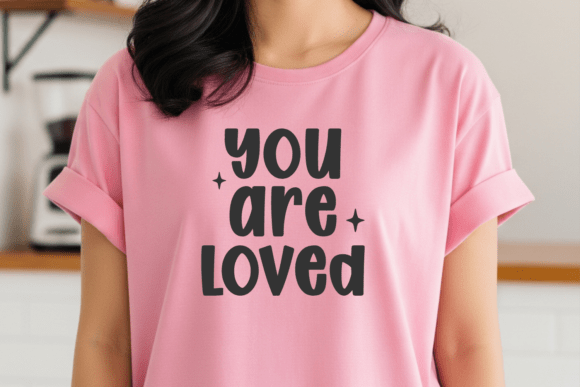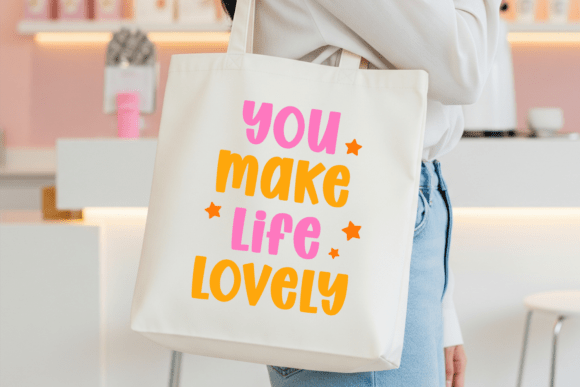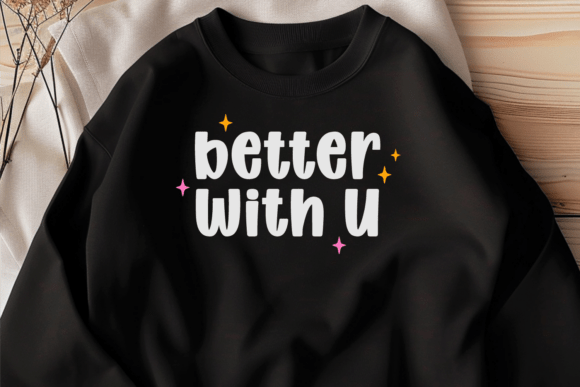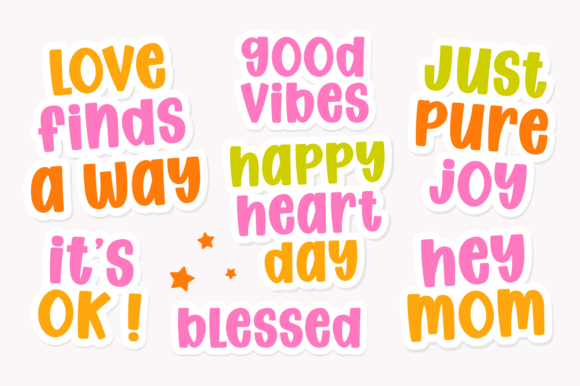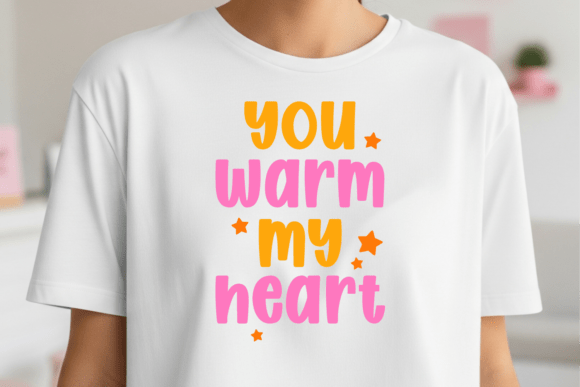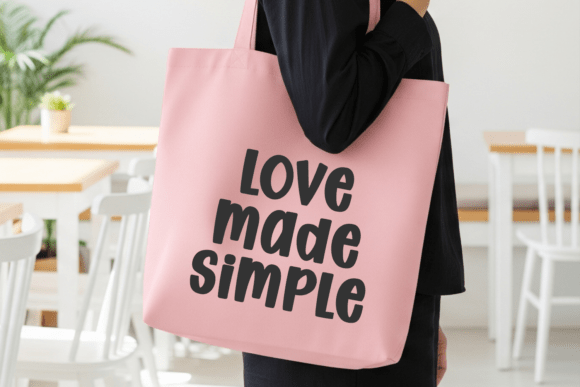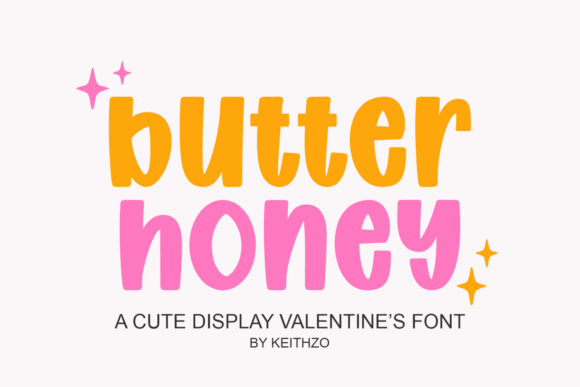
Welcome to the World of Butter Honey Font: A Sweet Addition to Your Design Ventures
Are you looking for a font that can add a touch of warmth and playfulness to your designs? Look no further than the Butter Honey font, a delightful and exuberant display typeface that is sure to capture the hearts of designers and crafters alike. In this article, we’ll take a closer look at the Butter Honey font, its unique characteristics, and how it can be used to elevate your design projects.
The Inspiration Behind Butter Honey Font
The Butter Honey font is inspired by the irresistible blend of butter and honey, two ingredients that evoke feelings of warmth, comfort, and joy. The font’s creator aimed to capture the essence of this sweet combination and infuse it into a typeface that would bring a sense of coziness and playfulness to any design venture. The result is a font that is both adorable and exuberant, making it perfect for a wide range of design applications.
Key Characteristics of Butter Honey Font
So, what makes the Butter Honey font so special? Here are some of its key characteristics:
- Rounded Edges: The Butter Honey font features rounded edges that give it a soft and sweet appearance. This makes it perfect for designs that require a touch of warmth and coziness.
- Joyous Bounce: The font has a lively rhythm that gives it a sense of movement and energy. This makes it ideal for designs that require a playful and exuberant feel.
- Readability: Despite its playful charm, the Butter Honey font is highly readable, making it suitable for a wide range of design applications, from romantic cards to educational materials.
Perfect for Valentine’s Day Creations
The Butter Honey font is particularly well-suited for Valentine’s Day creations, such as romantic cards and love letters. Its sweet and endearing aura makes it perfect for wrapping your loved ones in a warm and sincere embrace. Whether you’re designing a digital card or a handmade gift, the Butter Honey font is sure to add a touch of romance and whimsy to your project.
A Great Choice for Children’s Designs
The Butter Honey font is also a great choice for children’s designs, such as invitations, educational materials, and book illustrations. Its playful charm and lively rhythm make it perfect for capturing the imagination of young minds. Additionally, its readability ensures that it can be used for a wide range of applications, from nursery wall art to children’s book titles.
Why Choose Butter Honey Font?
So, why choose the Butter Honey font for your design ventures? Here are just a few reasons:
- Unique and Playful: The Butter Honey font is a unique and playful typeface that can add a touch of whimsy to any design project.
- Highly Readable: Despite its playful charm, the Butter Honey font is highly readable, making it suitable for a wide range of design applications.
- Versatile: The Butter Honey font can be used for a wide range of design projects, from romantic cards to children’s book illustrations.
In conclusion, the Butter Honey font is a heartwarming addition to any design venture. Its unique blend of rounded edges and lively rhythm makes it perfect for a wide range of design applications, from romantic cards to children’s book illustrations. Whether you’re a designer or crafter, the Butter Honey font is sure to inspire your creativity and bring a touch of warmth and playfulness to your projects. So why not give it a try and see how it can elevate your designs to the next level?
Get Ready to Fall in Love with Butter Honey Font